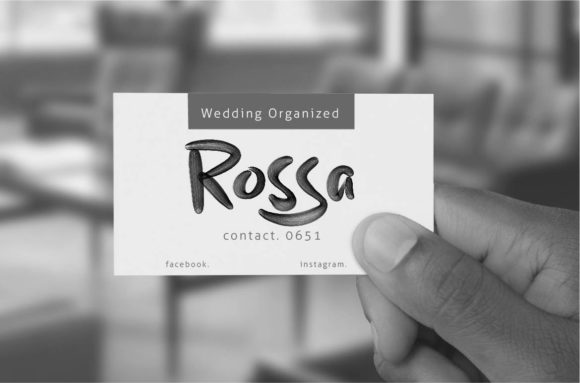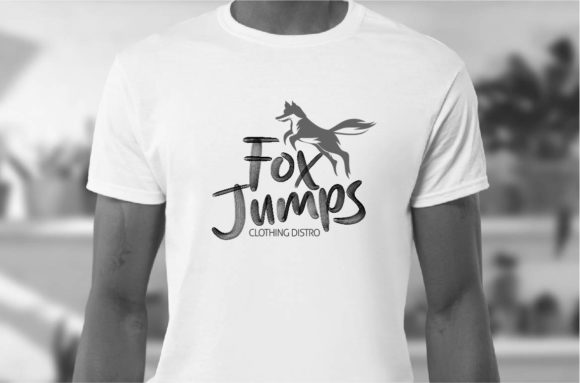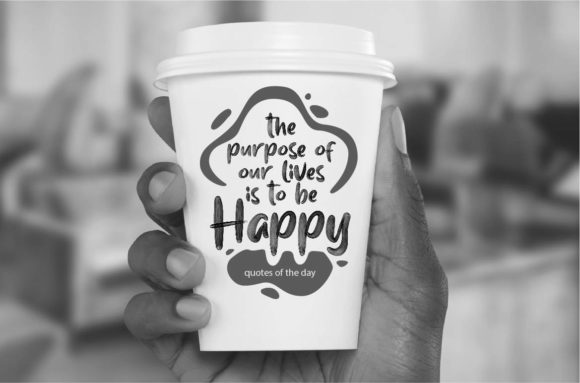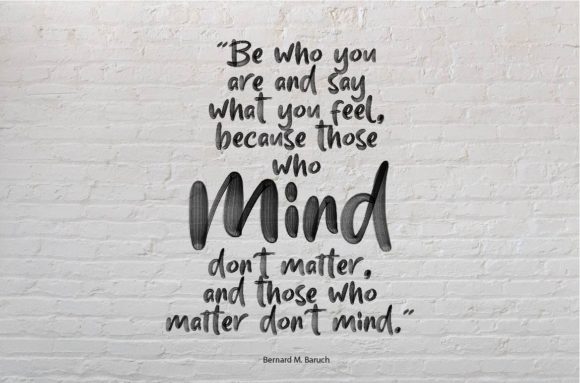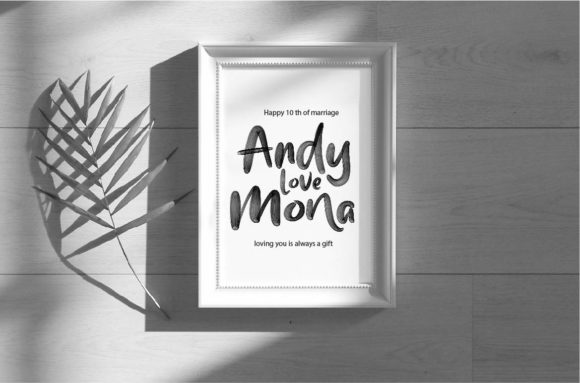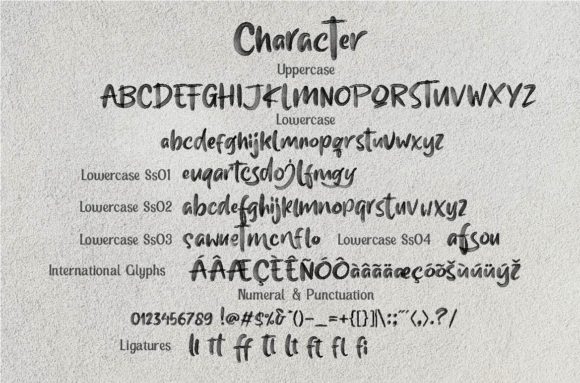
Introduction to Billynesia Font
Billynesia is a chunky lettered display font, created with the help of a unique brush pen.
Add this font to your creative ideas and notice how it will make them stand out .
Key Features of Billynesia Font
Why Choose Billynesia Font?
Billynesia Font offers exceptional quality and versatility, making it a valuable addition to your design toolkit. Whether you’re creating for personal projects or commercial use, Billynesia Font delivers professional results.